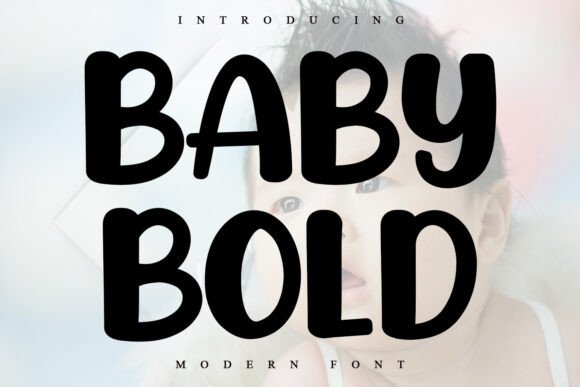
Baby Bold Font: Elevate Your Designs with a Unique and Versatile Typeface
In the world of design, typography plays a crucial role in conveying messages, expressing emotions, and creating visual identities. Among the numerous fonts available, Baby Bold stands out as a distinctive and robust typeface that can breathe life into your designs. With its clean and elegant aesthetic, Baby Bold seamlessly complements a wide range of creative mediums, making it an ideal choice for designers, businesses, and individuals looking to make a statement.
What Makes Baby Bold Special?
- Clean and Robust Aesthetic: Baby Bold boasts a clean and robust design that ensures clarity and readability, even at smaller font sizes.
- Versatility: This font is incredibly versatile, suitable for various design applications, from digital platforms to print materials.
- Distinctiveness: Baby Bold’s unique style sets it apart from more traditional fonts, allowing designers to create distinctive and memorable visual identities.
- Elegance: The font’s elegant lines and curves make it perfect for projects requiring a touch of sophistication and refinement.
Exploring the Many Uses of Baby Bold
Baby Bold’s adaptability makes it an excellent choice for a multitude of design projects. Here are some examples of how this font can elevate your work:
- YouTube Banners: Add a flamboyant flare to your YouTube channel with Baby Bold. Its bold and clean design ensures your banner stands out, attracting more viewers and subscribers.
- Wedding Invitations: Bring a touch of sophisticated elegance to wedding invitations with Baby Bold. The font’s refined aesthetic perfectly complements wedding themes, ensuring your invitations are both memorable and beautiful.
- ID Cards: For ID cards, a clear and robust font is essential. Baby Bold serves as an excellent choice, providing readability while adding a professional touch to ID card designs.
- Cover Logo Mockups: Enhance your cover logo mockups with Baby Bold. The font’s distinctive style can help your logo stand out, making your brand more noticeable in a crowded market.
- Craft Projects: Whether you’re working on personal craft projects or commercial designs, Baby Bold can add a unique and stylish touch. Its simplicity and elegance make it suitable for a wide range of craft applications.
How Baby Bold Can Advance Your Business
In today’s competitive business landscape, establishing a strong visual identity is crucial. Baby Bold can play a significant role in diversifying and advancing your business spectrum. Here’s how:
- Brand Consistency: Using Baby Bold across your branding materials ensures consistency, helping to build recognition and trust with your audience.
- Professionalism: The font’s clean and robust design conveys professionalism, essential for businesses looking to establish a credible and reliable image.
- Creativity and Innovation: Baby Bold’s unique style allows businesses to express creativity and innovation, setting them apart from competitors and attracting customers looking for fresh and exciting products or services.
- Versatility in Marketing Materials: From brochures and flyers to social media graphics and website headers, Baby Bold can be used across a wide range of marketing materials, providing a cohesive and professional look.
Tips for Getting the Most Out of Baby Bold
To maximize the impact of Baby Bold in your designs, consider the following tips:
- Pair with Complementary Fonts: While Baby Bold is versatile and can stand alone, pairing it with complementary fonts can add depth and interest to your designs.
- Experiment with Colors: Don’t be afraid to experiment with different colors. Baby Bold looks great in bold colors but can also be elegant in metallic or pastel shades.
- Consider Your Audience: Tailor your use of Baby Bold to your target audience. For example, if you’re designing for a luxury brand, you might opt for more refined and subtle applications of the font.
- Play with Sizes: Baby Bold is effective at various sizes. Experiment with different font sizes to create visual hierarchy and emphasize key messages.
Unleash Your Creativity with Baby Bold
In conclusion, Baby Bold is more than just a font – it’s a design tool that can transform your projects with its unique blend of elegance, robustness, and versatility. Whether you’re a professional designer, a business looking to enhance your brand, or an individual working on personal projects, Baby Bold offers the potential to elevate your designs and make a lasting impression. So, why wait? Unleash your creativity with Baby Bold and discover the difference it can make in your world of design.